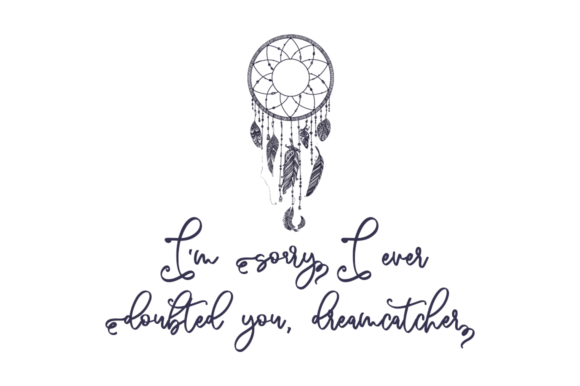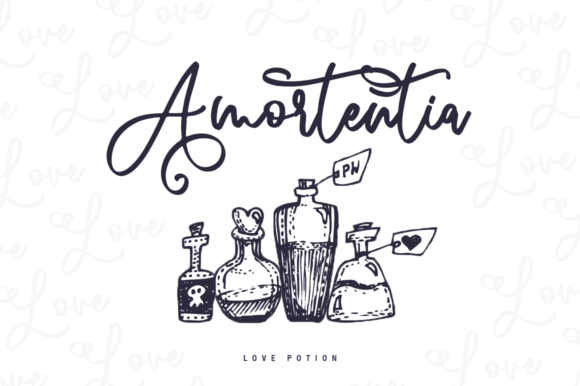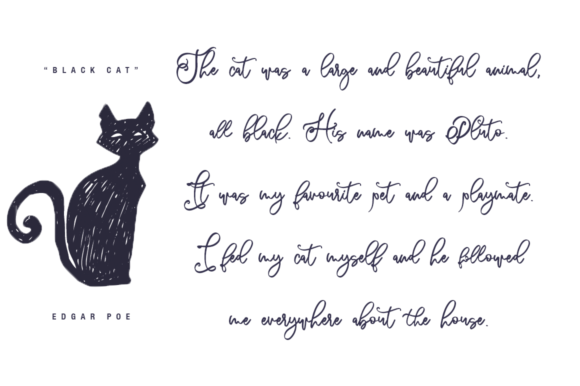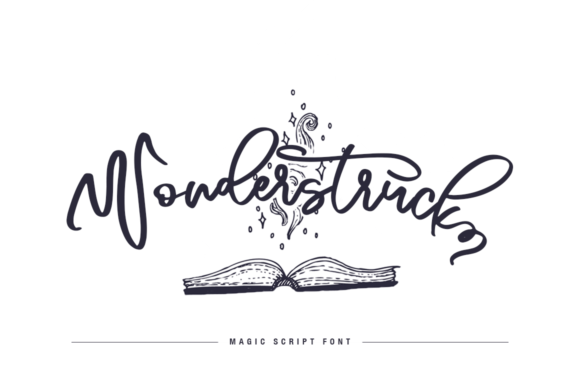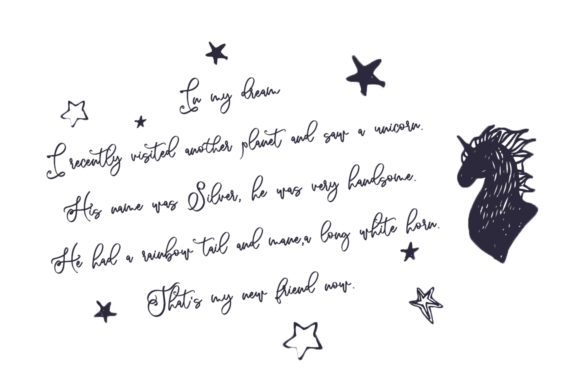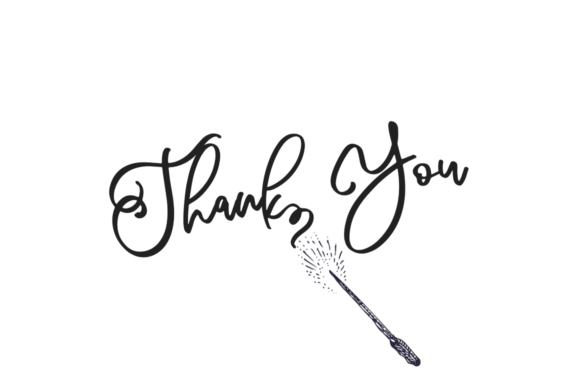
Introducing Heartily Font: A Sweet Handwritten Delight
Are you on the hunt for a font that exudes warmth, elegance, and a touch of playfulness? Look no further than Heartily Font, a beautiful handwritten font that is sure to capture your heart. With its lovely flow and versatile style, Heartily is the perfect addition to any design project, from crafting and scrapbooking to branding and advertising.
What Makes Heartily Font So Special?
Heartily Font is a sweet handwritten font that boasts a range of features that make it stand out from the crowd. Here are just a few reasons why designers and crafters are falling in love with this gorgeous font:
- PUA Encoding: Heartily Font is PUA (Private Use Area) encoded, which means that you can access all of the glyphs and swashes with ease. This makes it simple to create stunning designs that are full of personality and flair.
- Handwritten Style: With its delicate, cursive strokes and charming imperfections, Heartily Font has a distinctly handwritten feel that is both warm and inviting.
- Versatile: Whether you’re creating a whimsical craft project or a sophisticated brand identity, Heartily Font is incredibly versatile and can be used in a wide range of design applications.
Design Possibilities with Heartily Font
So, what can you create with Heartily Font? The possibilities are endless! Here are a few ideas to get you started:
- Scrapbooking and Journaling: Add a personal touch to your scrapbook pages and journals with Heartily Font. Use it to title photos, write journal entries, or create decorative borders and frames.
- Crafting and DIY Projects: From handmade cards and invitations to crafty signs and banners, Heartily Font is the perfect choice for any DIY project that requires a personal touch.
- Branding and Advertising: Use Heartily Font to create a unique and memorable brand identity for your business. It’s perfect for logos, packaging, and advertising materials that require a touch of elegance and sophistication.
Tips for Using Heartily Font
To get the most out of Heartily Font, here are a few tips to keep in mind:
- Experiment with Sizes and Colors: Don’t be afraid to experiment with different sizes and colors to find the perfect combination for your design.
- Mix and Match with Other Fonts: Heartily Font pairs beautifully with other fonts, so don’t be afraid to mix and match it with your favorite fonts to create a unique and interesting design.
- Take Advantage of Swashes and Glyphs: With its PUA encoding, Heartily Font offers a range of swashes and glyphs that can add an extra touch of personality to your designs. Be sure to explore these and use them to enhance your creations.
| Font Name | Heartily Font |
| Author | BennyDesigns |
In conclusion, Heartily Font is a sweet handwritten font that is sure to delight designers and crafters alike. With its lovely flow, versatile style, and PUA encoding, it’s the perfect choice for any design project that requires a touch of elegance and sophistication. So why wait? Fall in love with Heartily Font today and start creating spectacular designs that will leave a lasting impression!